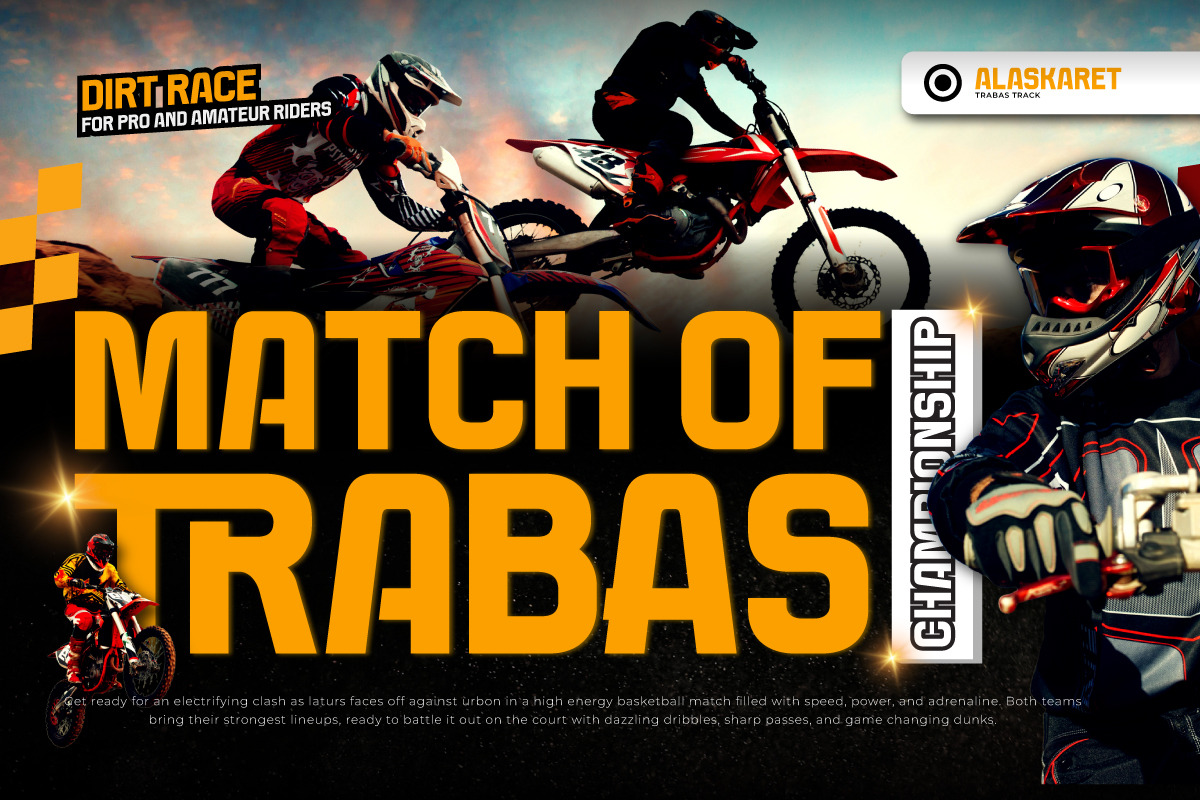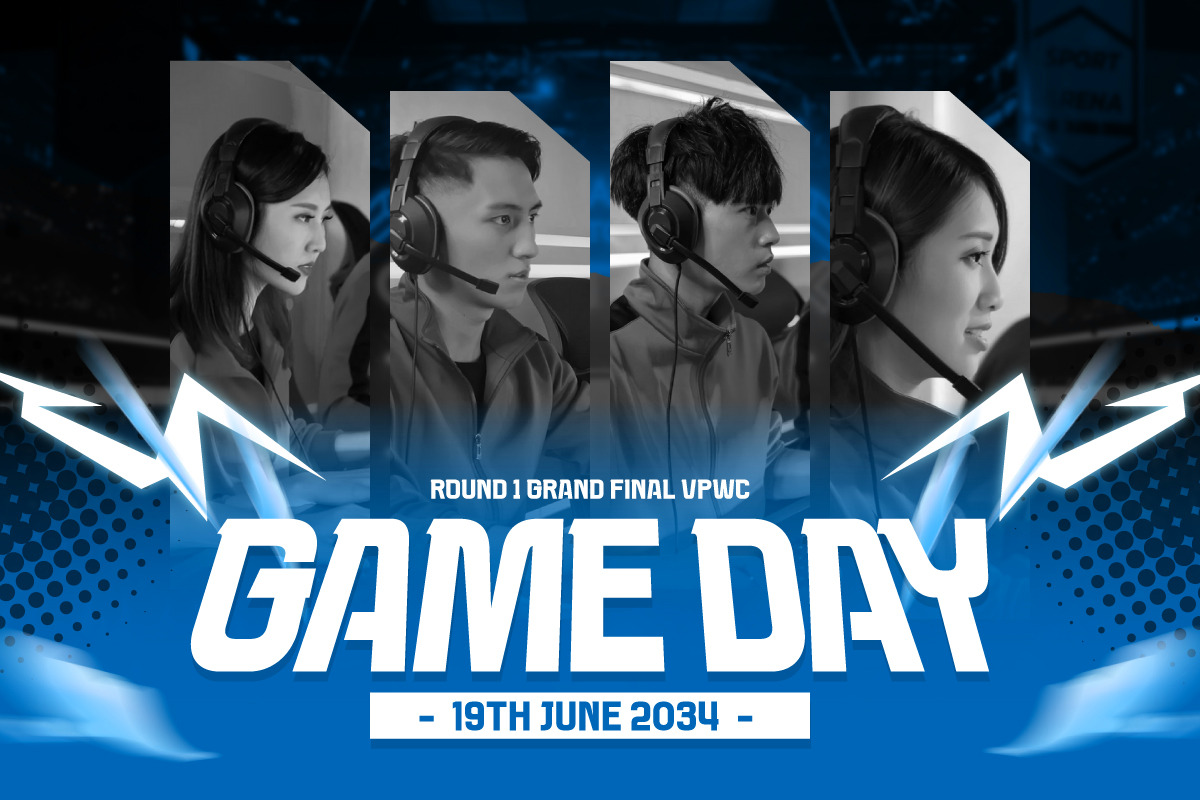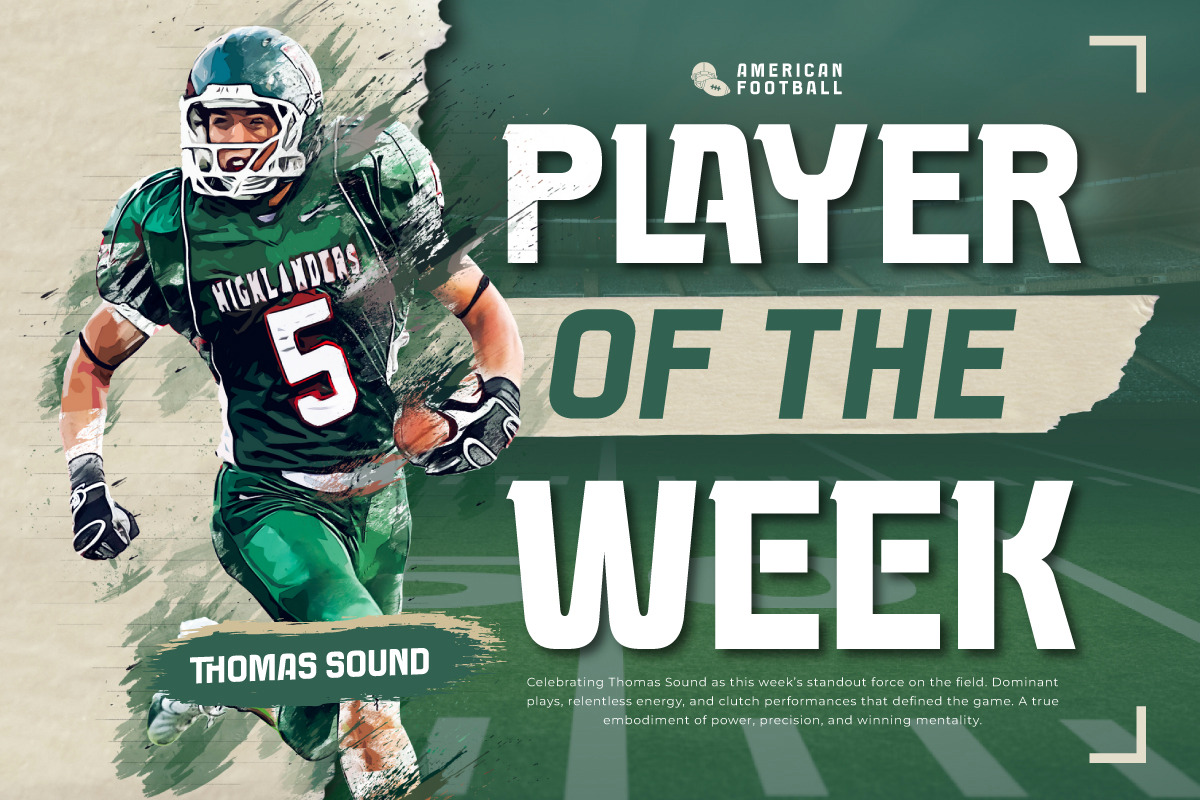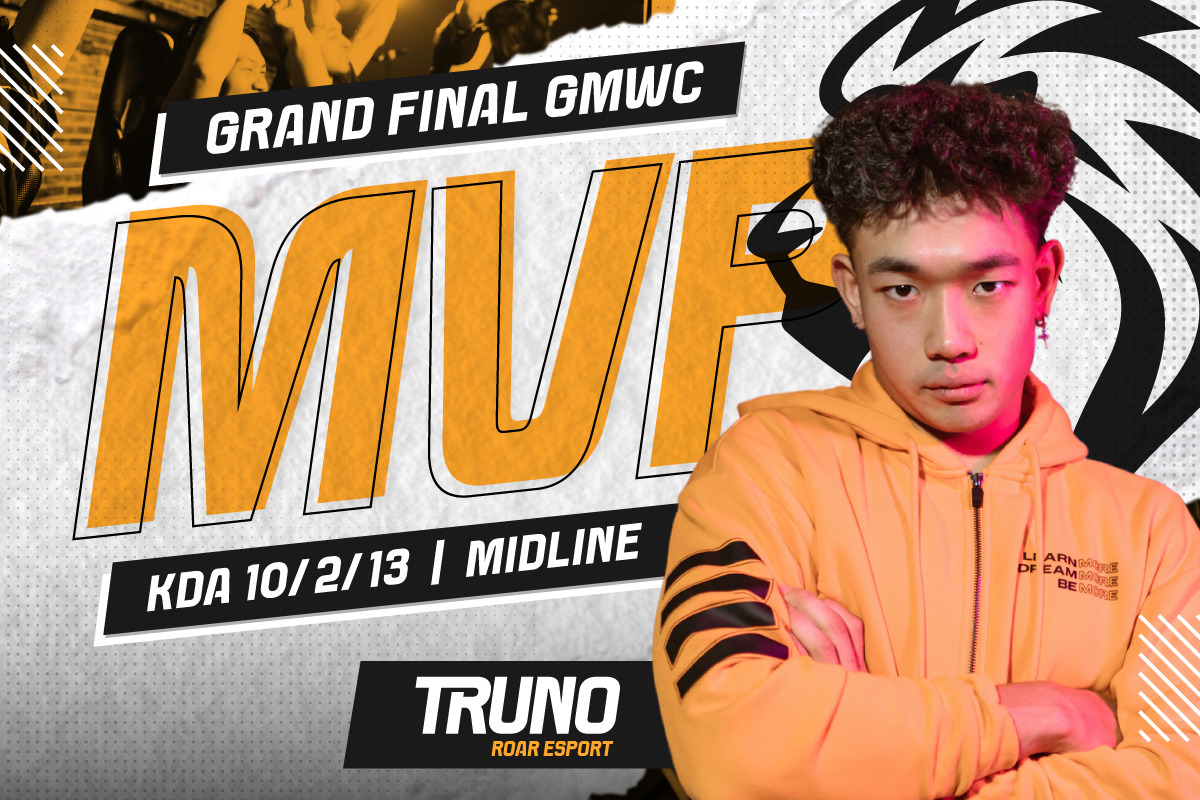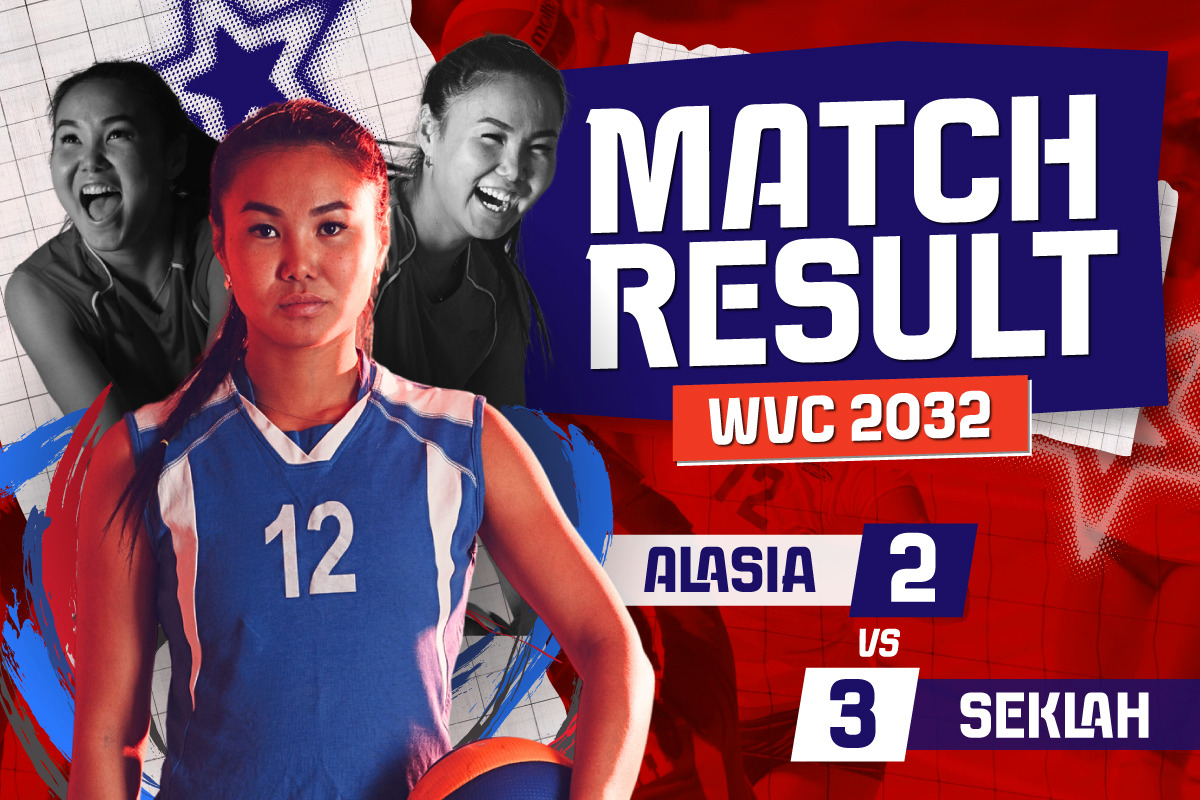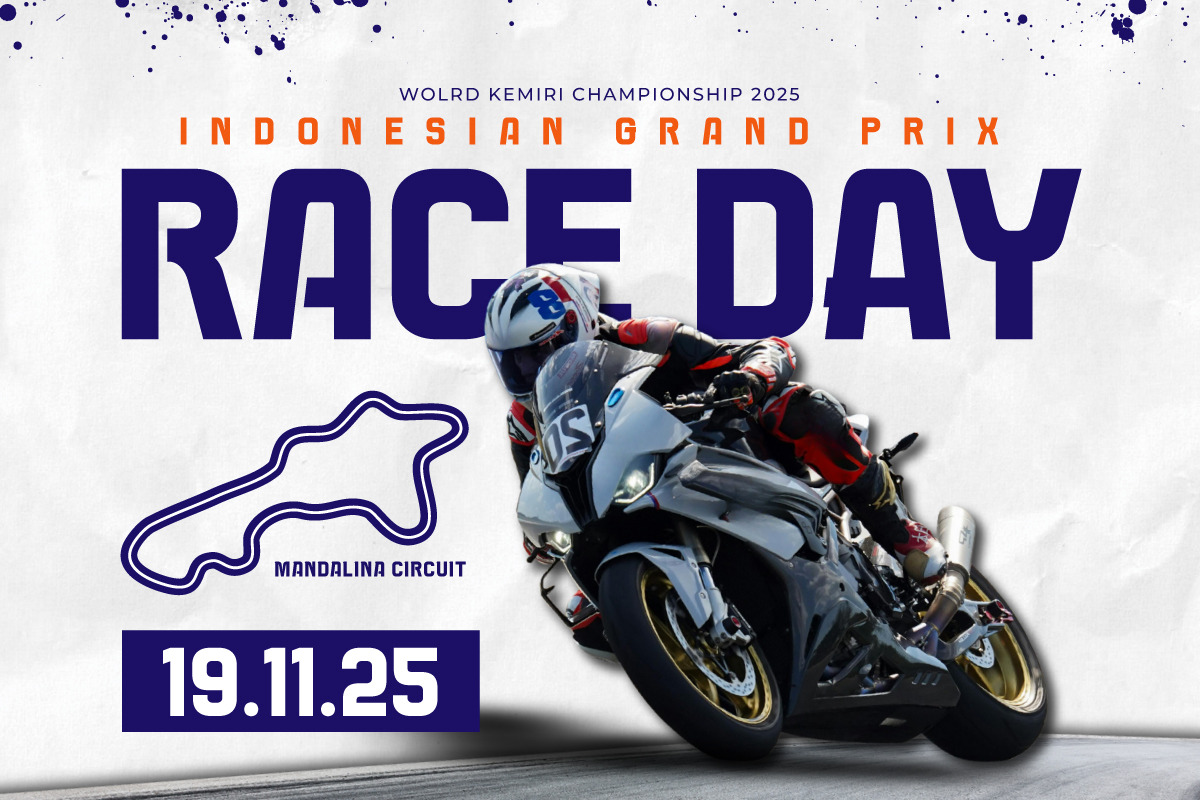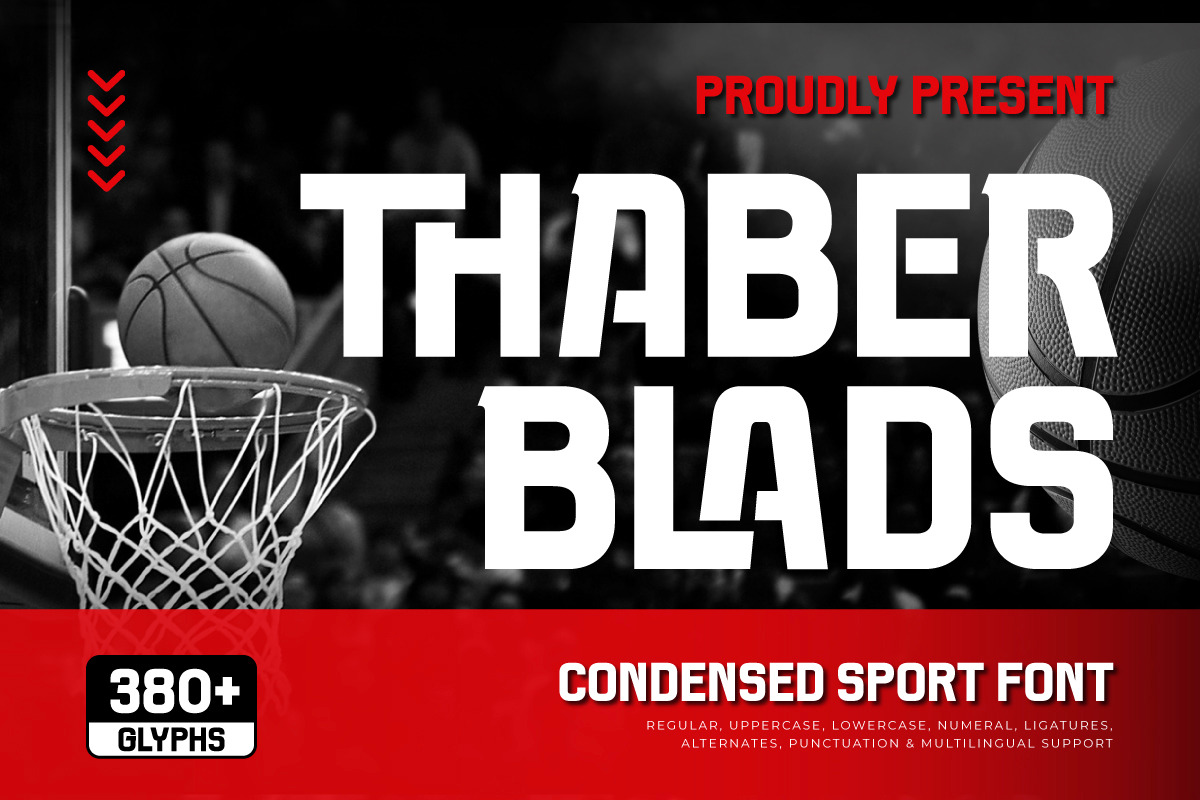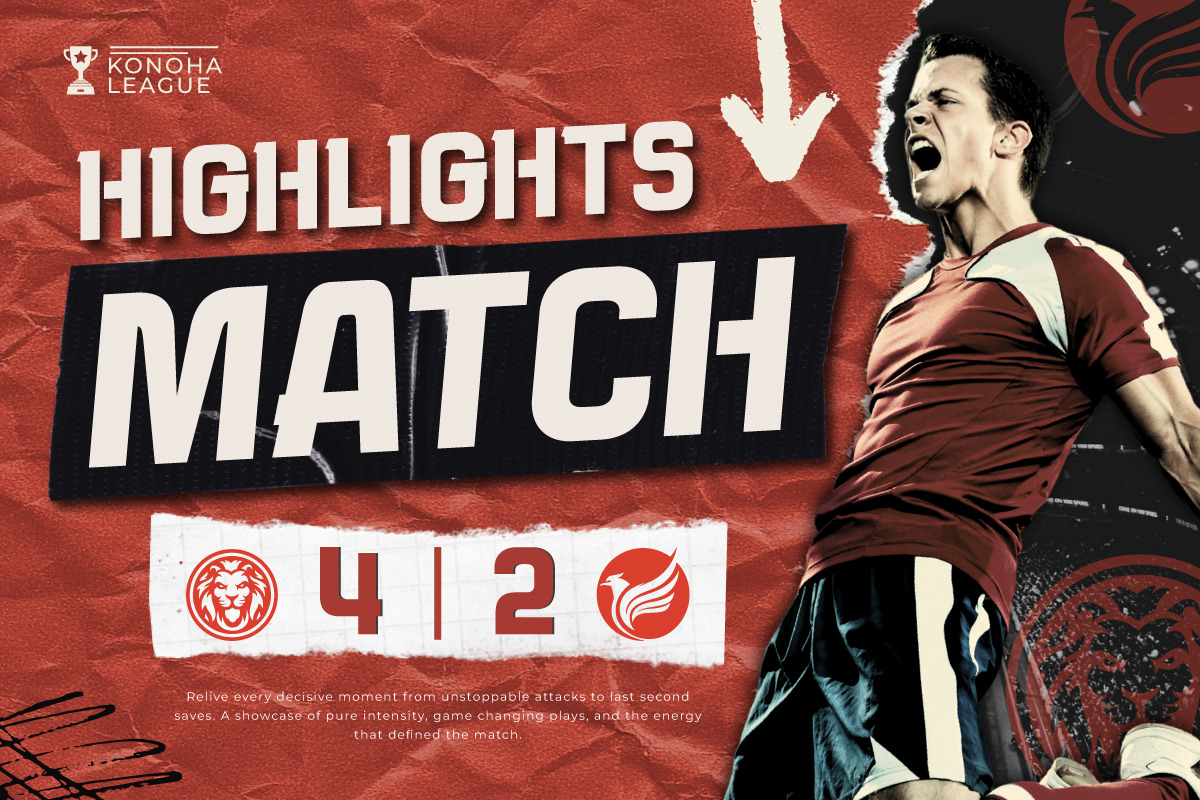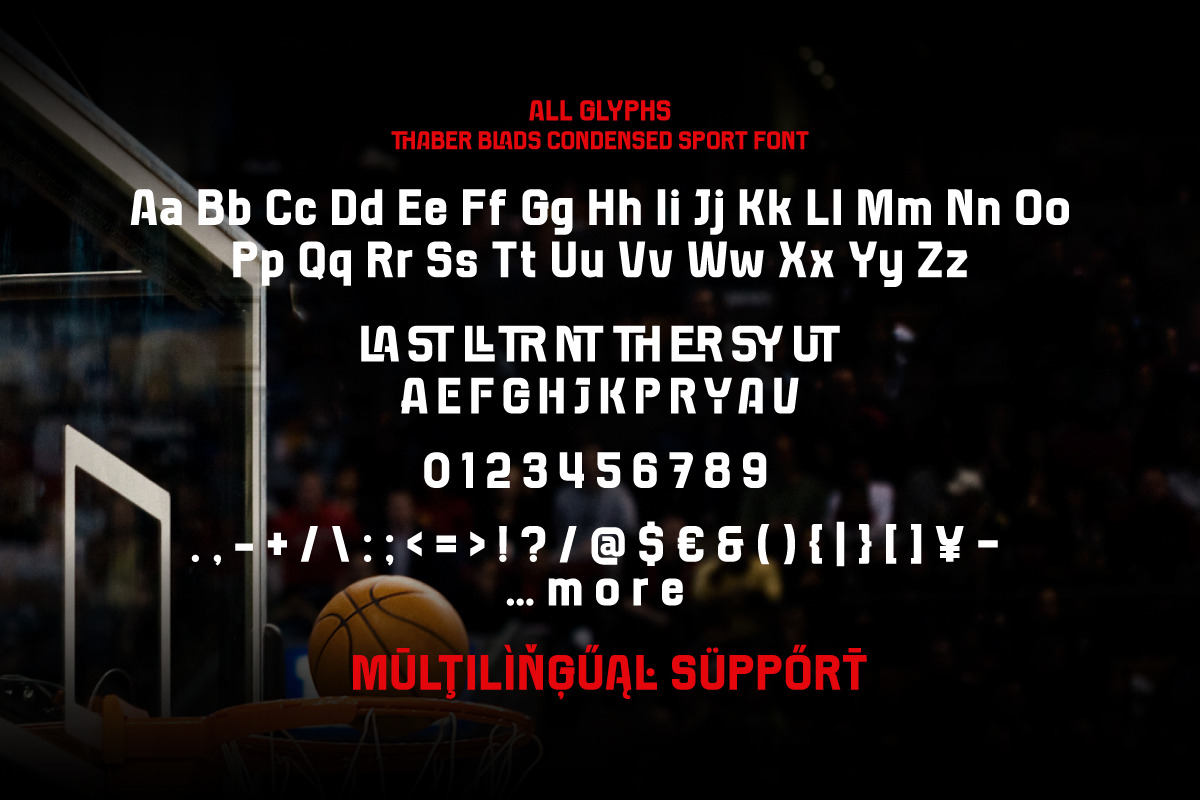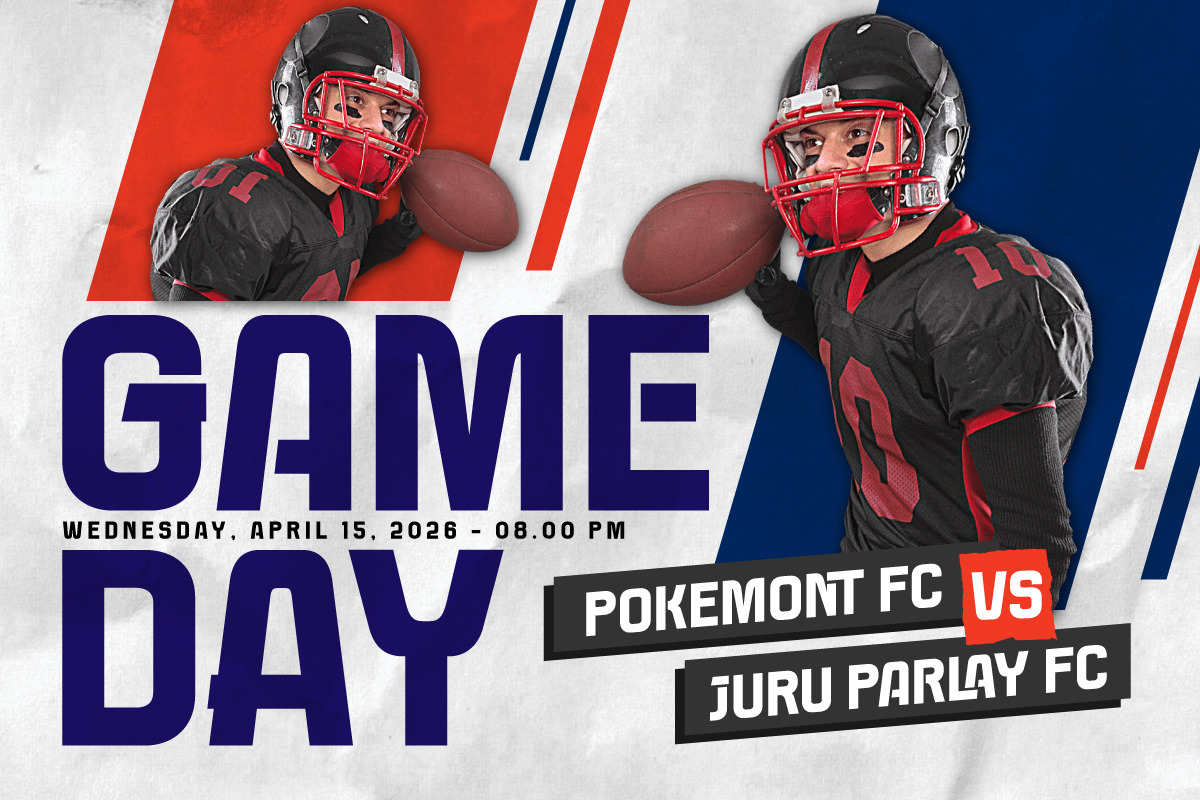
Thaber Blads - Condensed Sport Font
Thaber Blads is a super-bold Condensed Sport Font typeface, designed to inject maximum energy and impact into every athletic visual. Its dense, powerful letterforms visually capture the spirit of unrelenting competition, strength, and speed, making it the perfect choice for sports branding that needs to look aggressive and unforgettable.
Geometrically constructed with an extremely condensed structure and sharp edges, this font is engineered for clarity and bold presence, especially in large uppercase titles and displays. Its tight structure and blocky nature help capture the intensity of fast-paced sports, including football, racing, basketball, and esports. It performs exceptionally well in athlete highlights, scoreboards, and dynamic promotional media.
Featuring over 380 glyphs, alternates, ligatures, and multilingual support, Thaber Blads offers professional versatility for designers. The typeface brings the feeling of adrenaline, momentum, and athletic power into every design. Ideal for esports graphics, team posters, race announcements, and dynamic editorial layouts, this font guarantees a modern, professional, and maximally impactful aesthetic.
- Multilingual Support: Fully supports 85+ languages, including: Afrikaans, Albanian, Asu, Basque, Bemba, Bena, Breton, Catalan, Chiga, Cornish, Croatian, Czech, Danish, Dutch, Embu, English, Esperanto, Estonian, Filipino, Finnish, French, Friulian, Galician, Gusii, Hungarian, Indonesian, Irish, Italian, Kabuverdianu, Kalenjin, Kamba, Kikuyu, Kinyarwanda, Latvian, Lithuanian, Lower Sorbian, Luo, Luxembourgish, Luyia, Machame, Makhuwa-Meetto, Makonde, Malagasy, Maltese, Manx, Meru, Morisyen, North Ndebele, Norwegian Bokmål, Norwegian Nynorsk, Nyankole, Oromo, Polish, Portuguese, Quechua, Romanian, Romansh, Rombo, Rundi, Rwa, Samburu, Sango, Sangu, Scottish Gaelic, Sena, Serbian, Shambala, Shona, Slovak, Slovenian, Soga, Somali, Spanish, Swahili, Swedish, Swiss German, Taita, Teso, Turkish, Upper Sorbian, Uzbek (Latin), Volapük, Vunjo, Walser, Zulu.